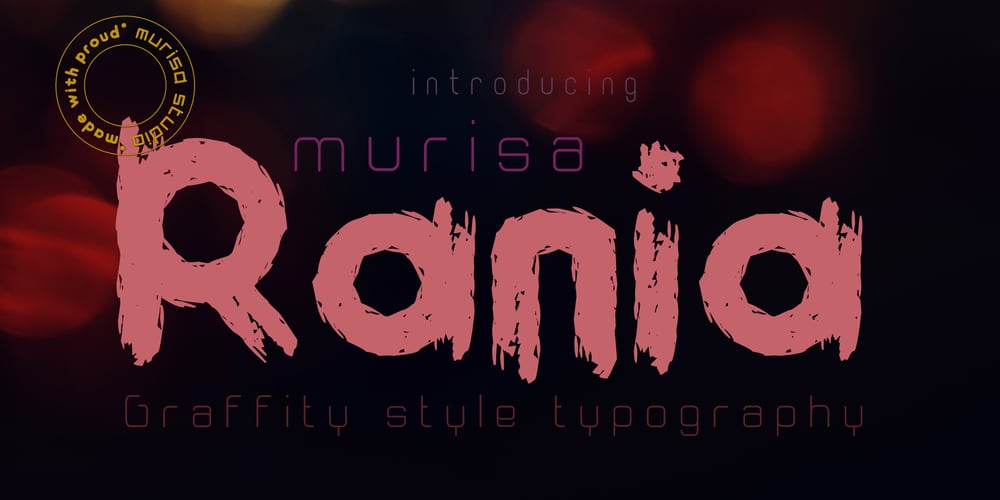
Murisa Rania Font Family was designed by Lili and published by Murisa Studio. Murisa Rania contains 2 styles and family package options. Murisa Rania is our next very attractive font. Have you ever imagined a font that is formed from brush strokes whose ink is almost dry? That’s what this font is made of. Murisa Rania combines elements of art and high technique in its creation to create a unique, attractive and beautiful font.